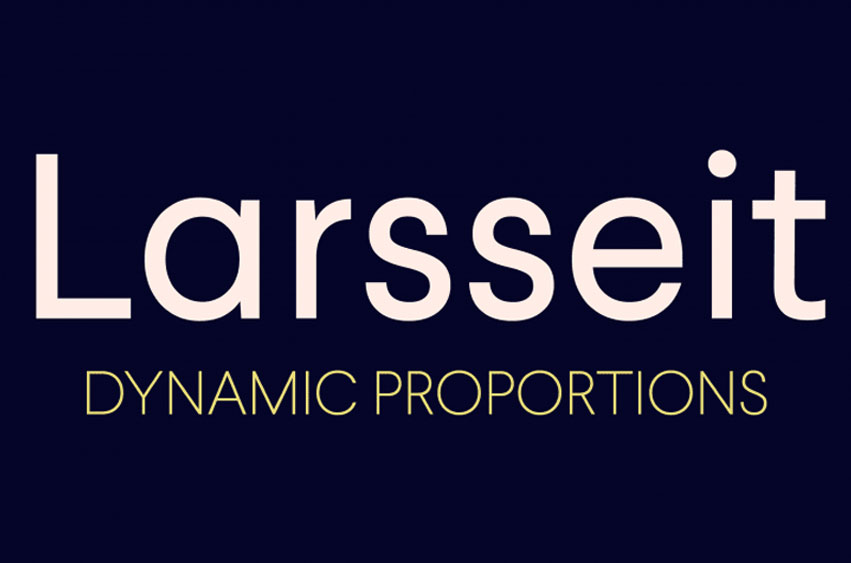
Larsseit Font
Larsseit Font can be defined as a font family that blends classic proportions with very low contrast levels for maximum readability, clarity and objectivity. Larsseit encompasses six weights that span from UltraThin to Black along with their respective italics and Small Caps counterparts.
Each font provides OpenType Features such as Proportional Figures and Tabular Figures as well as Numerators with Superscripts and Denominators as well as scientific Inferiors, Subscript, Ordinals, Fractions as well as Ligatures.